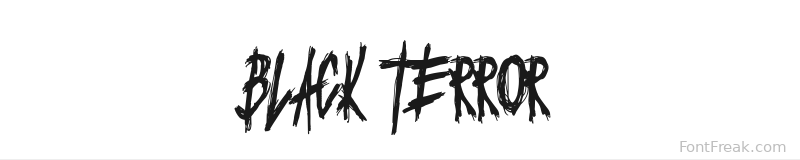
Black Terror
Black Terror, designed by woodcutter Manero, is a striking display font that captures attention with its unique character and distinct style. This font falls into the decorative category, characterized by its bold, jagged strokes that evoke a sense of raw energy and intensity. The stroke weight varies dramatically, with thick lines contrasting against sharp, angular edges, creating a dynamic visual impact. The spacing between the letters adds to its dramatic flair, allowing each character to stand out while maintaining a cohesive look.
The Black Terror font is an excellent choice for a variety of creative projects. Its edgy appearance makes it particularly suitable for movie posters, especially in the horror or thriller genres, where it can amplify the atmosphere of suspense and fear. Additionally, it works well for promotional materials for music festivals or events that embrace alternative or underground aesthetics. Restaurant menus looking to convey a bold, avant-garde theme will also benefit from its striking presence. Graphic designers can utilize this font in branding projects that aim to stand out, making it appealing for small business owners who want to create a memorable visual identity. Content creators seeking to make an impact on social media will find that Black Terror enhances their graphics with a unique twist.
Black Terror font free download offers an accessible way for enthusiasts to incorporate this captivating typeface into their work. What sets this font apart is its ability to convey emotion and narrative through its design. With its raw, unfiltered style, Black Terror invites viewers to engage with the content on a deeper level, making it a standout choice for anyone looking to make a bold statement in their design projects.